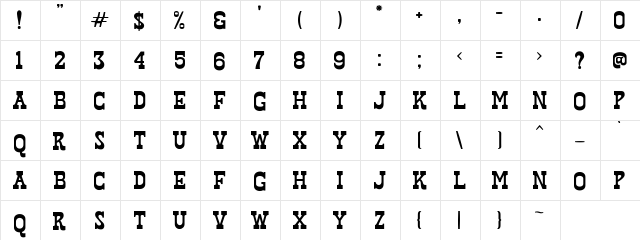
West Hood Regular
Design Context for West Hood Typeface
West Hood takes a measured approach to typography — its balanced proportions and neutral character make it a reliable workhorse for both digital and print work.
Pro Tip: Use West Hood in both headline and body roles to test its range before committing to a single application.